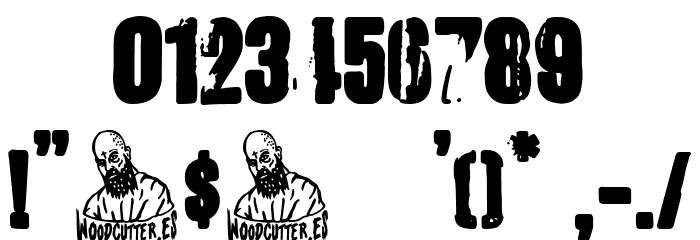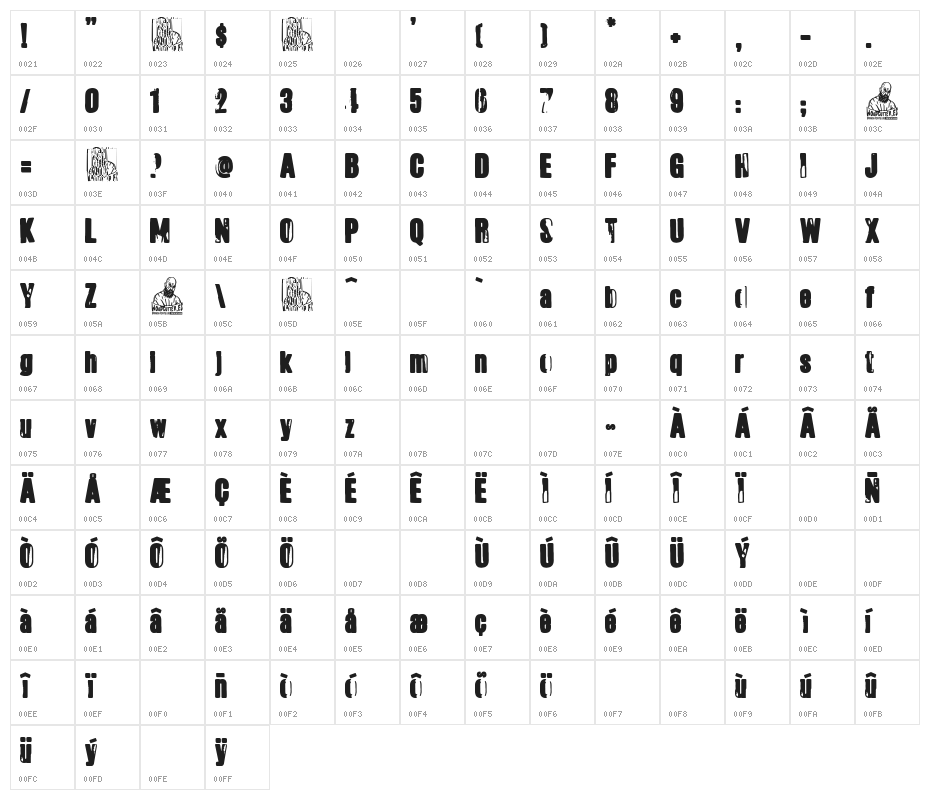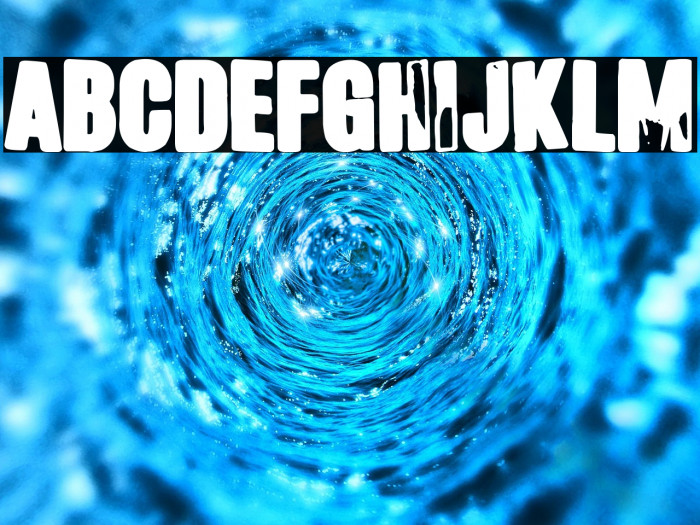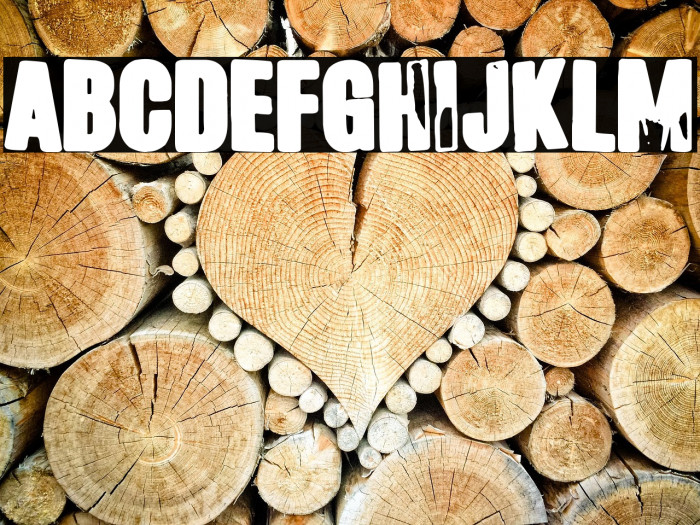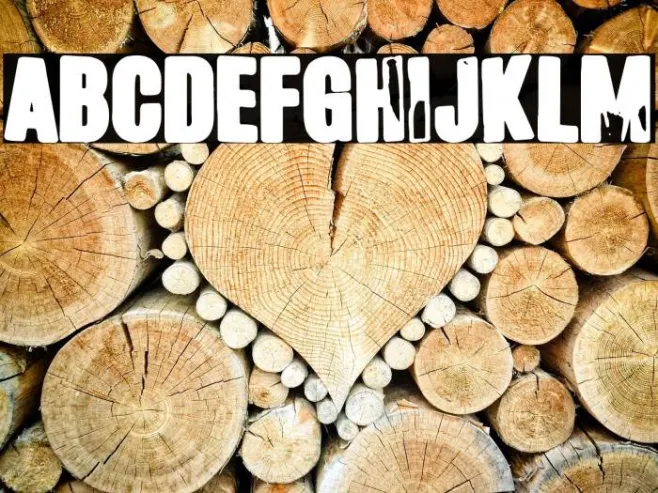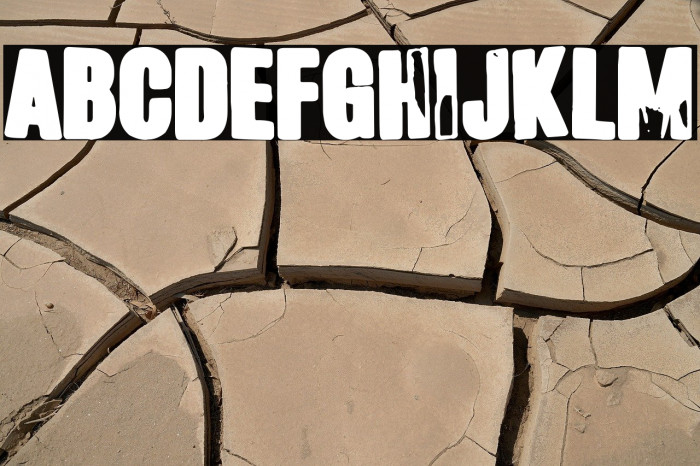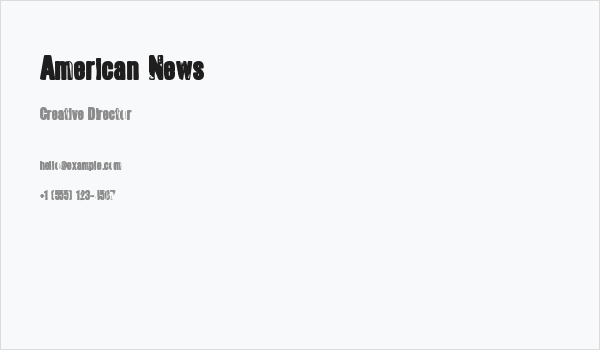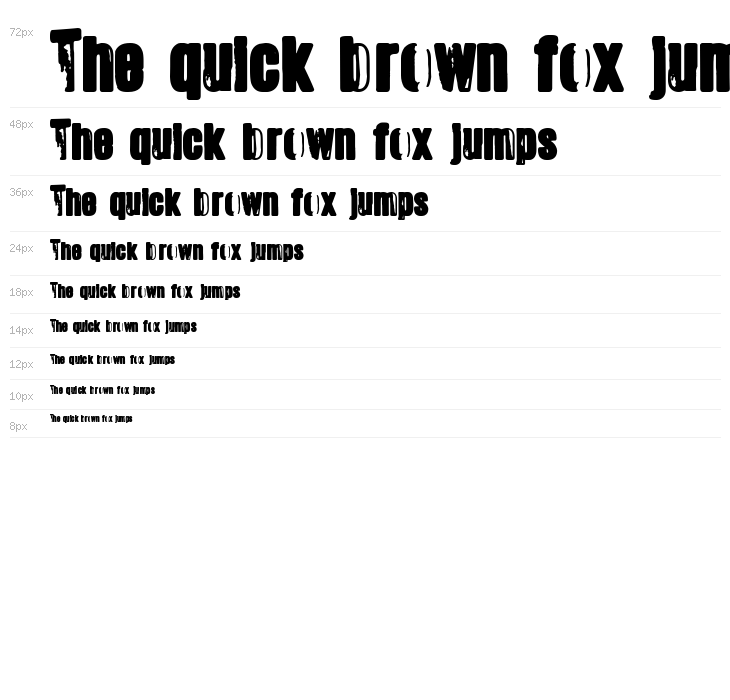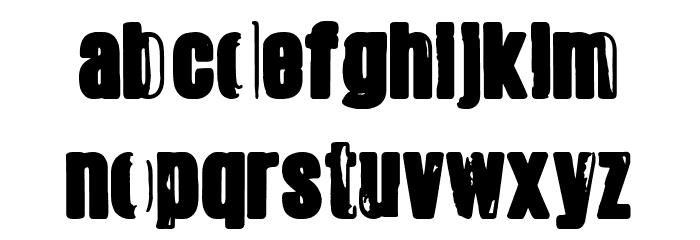
American News Font
American News Description
This font features a bold and distressed style, reminiscent of vintage newspaper headlines. The characters have a rough, textured appearance, giving them a worn and rugged look. The uppercase letters are prominent and impactful, while the lowercase letters maintain the same distressed aesthetic. Numbers and special characters follow the same design, ensuring consistency throughout. The font's unique style makes it ideal for projects that require a bold statement or a retro feel.
| Overall Style | Vintage |
| Proposed Projects | Ideal for posters, album covers, vintage-themed designs, and branding that requires a strong, retro impact. |